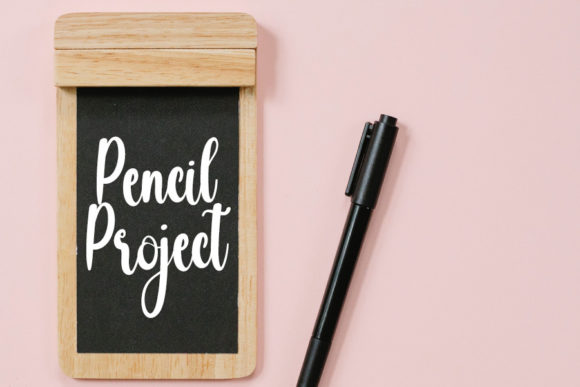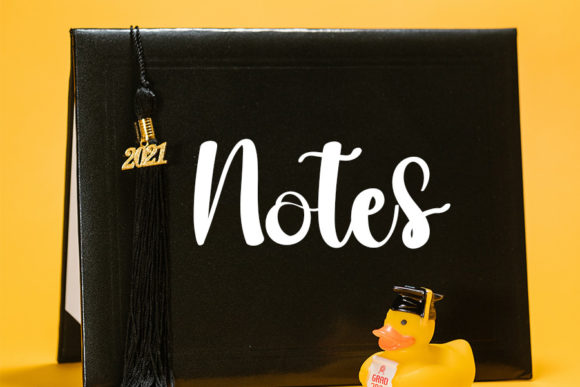
Dinamic Font
db-ku.com - Script & Handwritten -- Dinamic is a friendly handwritten font, carefully designed to become a true favorite. It maintains its classy calligraphic influences while feeling contemporary and fresh.